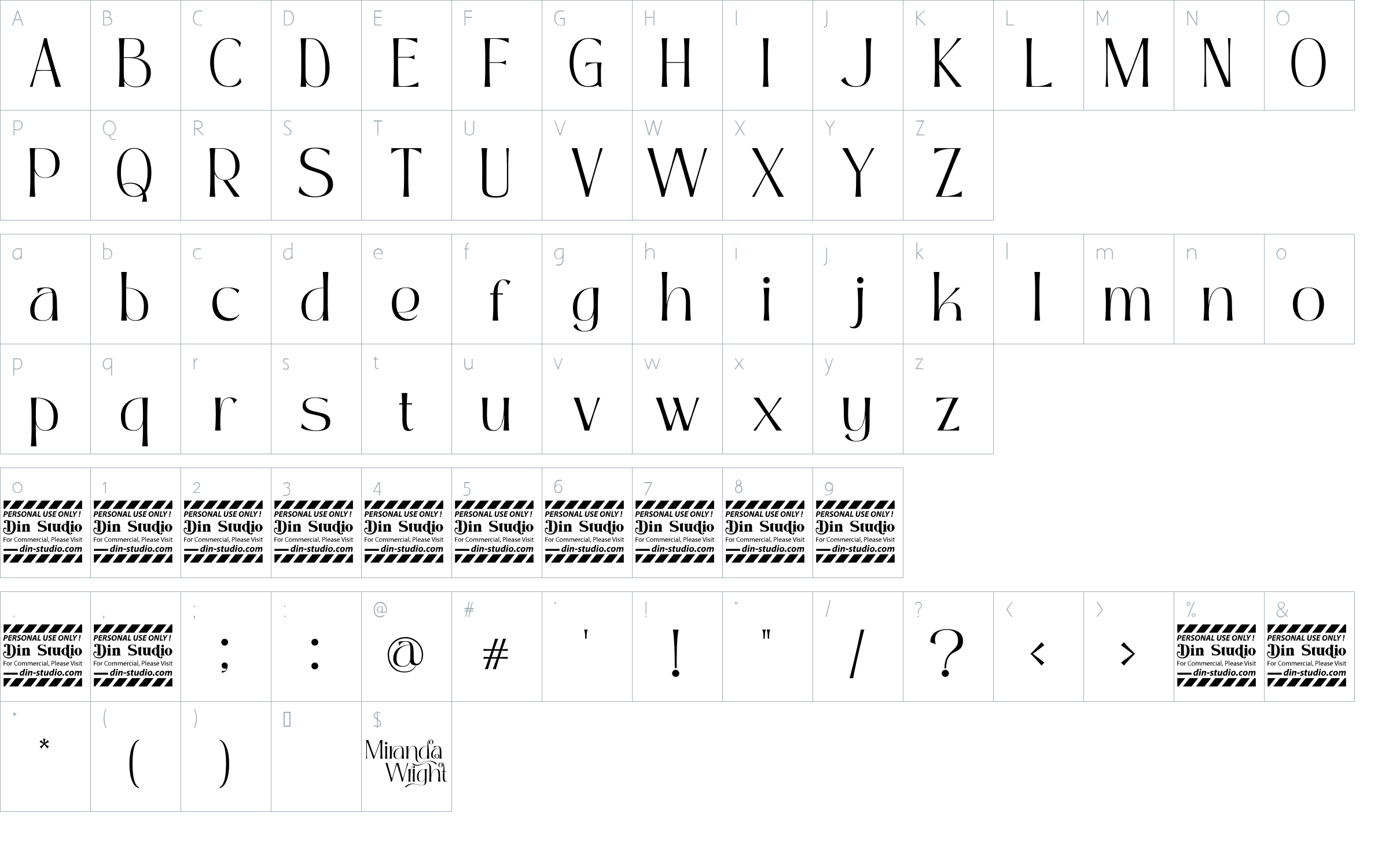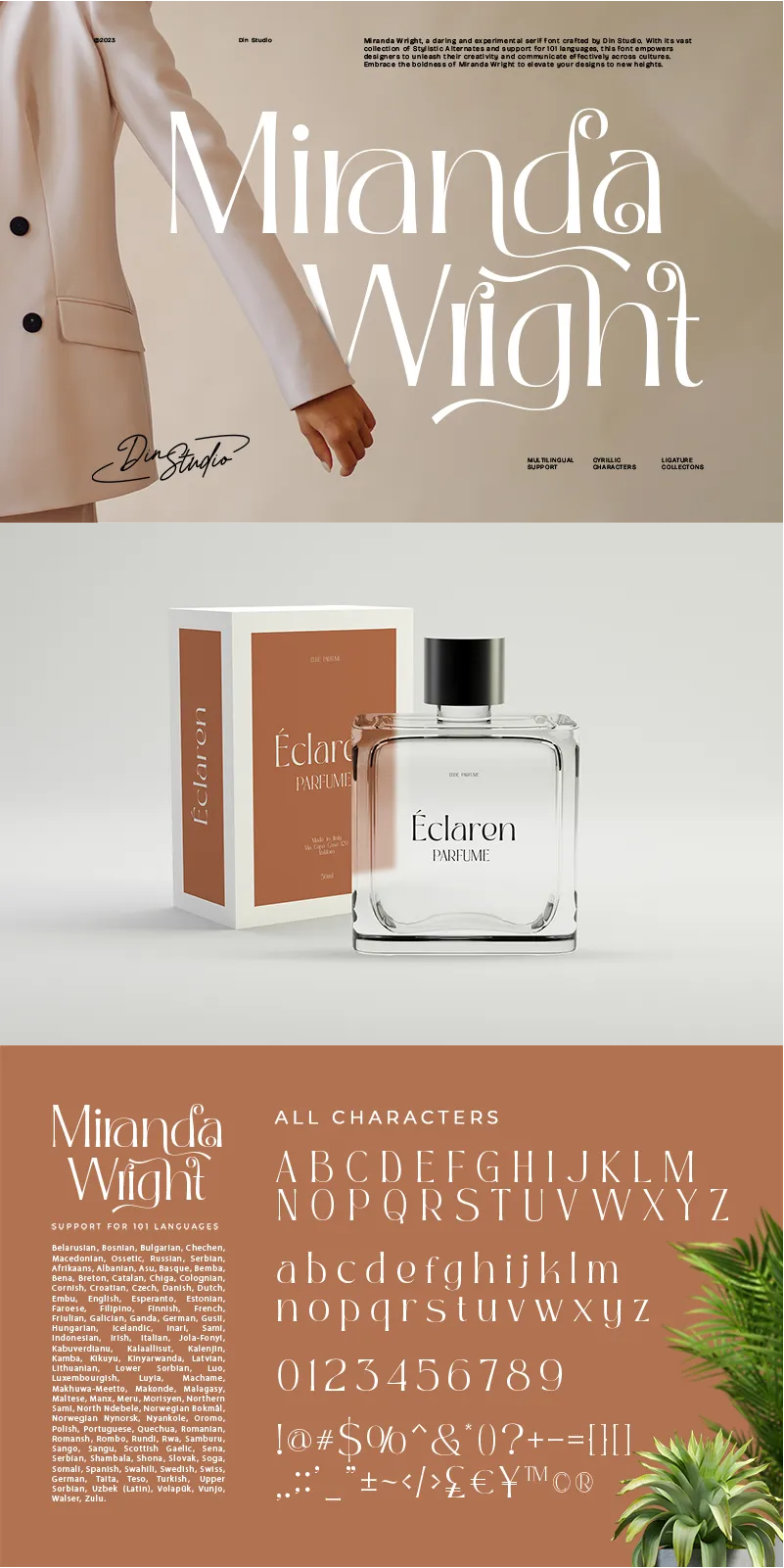
Miranda Wright Font
About Miranda Wright
Miranda Wright is a captivating serif font designed in an exquisite and elegant style. Each letter is meticulously crafted with fine details, evoking a sense of sophistication and grace. What sets Miranda Wright apart are the last few letters, which feature graceful circular swings that add a touch of charm and uniqueness to the font.. The circular swings at the end of certain letters infuse this serif with a delightful flair. These subtle and graceful details add an air of playfulness and individuality to the font, setting it apart from conventional serif typefaces. The circular swings give the font a distinctive personality, making it ideal for creative projects that seek to stand out. Its legible and elegant letterforms make it suitable for both body text and headings, while the circular swings add a touch of character that enhances the overall visual appeal. Enjoy the available features here.
Miranda Wright fits in headlines, logos, posters, flyers, invitations, greeting cards, branding materials, print media, editorial layouts, website headers, and many more. Find out more ways to use this font by taking a look at the font preview.